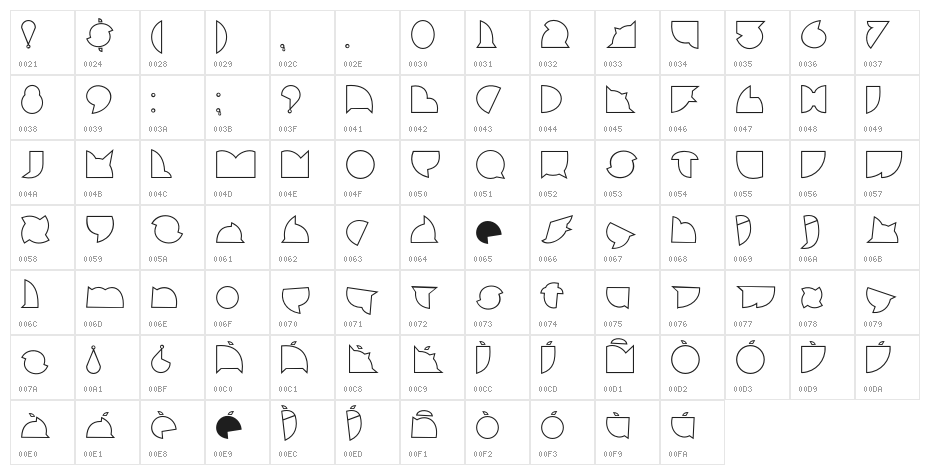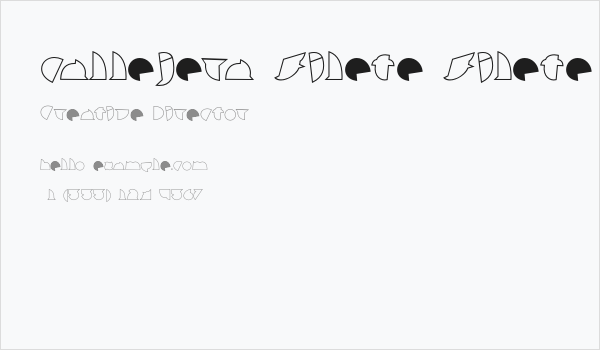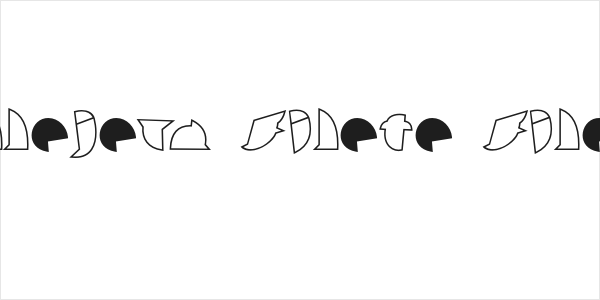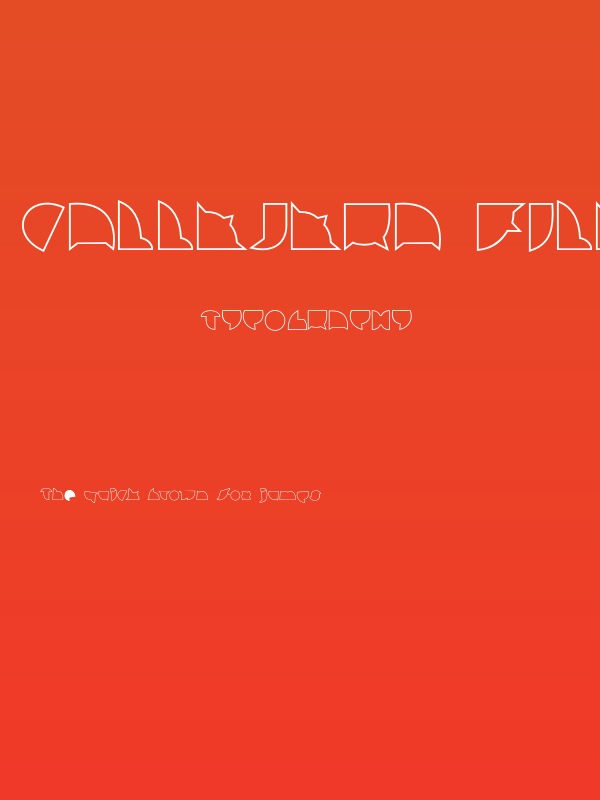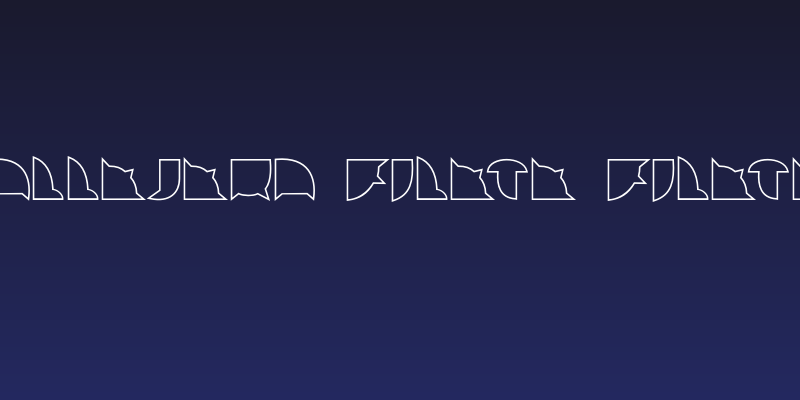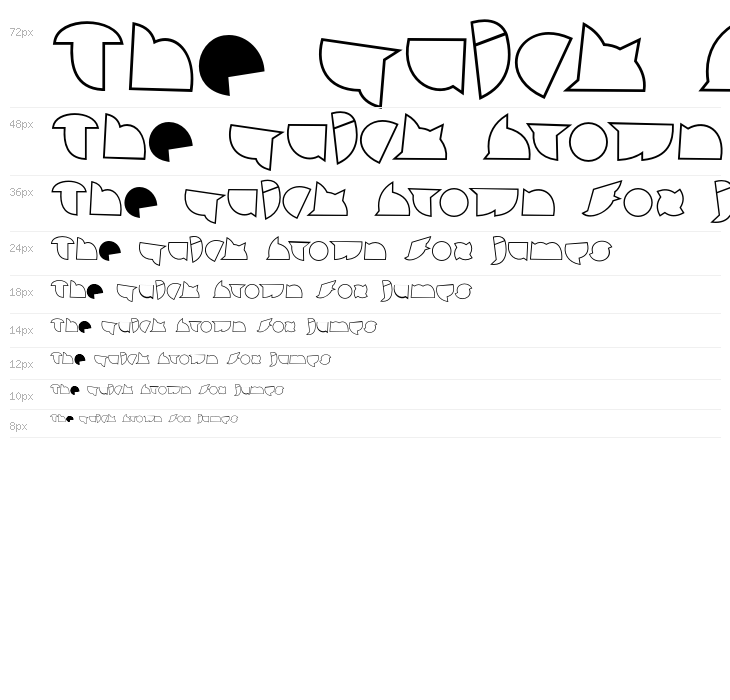
callejera filete filete Font
callejera filete filete Description
This font features a highly decorative and abstract design, characterized by geometric shapes and bold outlines. Each character is uniquely crafted, incorporating elements such as sharp angles, curves, and cut-out sections that create a dynamic and playful appearance. The uppercase and lowercase letters maintain a consistent style, with a focus on symmetry and balance. Numbers and special characters follow the same design principles, ensuring a cohesive look across all elements. The font's artistic flair makes it stand out, offering a modern and edgy aesthetic that is both eye-catching and memorable.